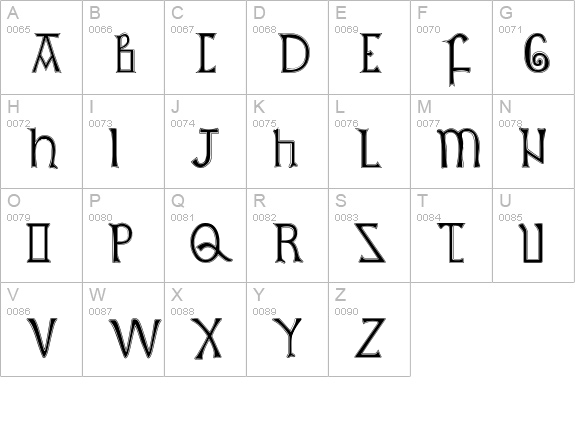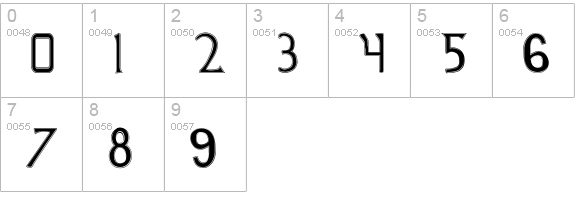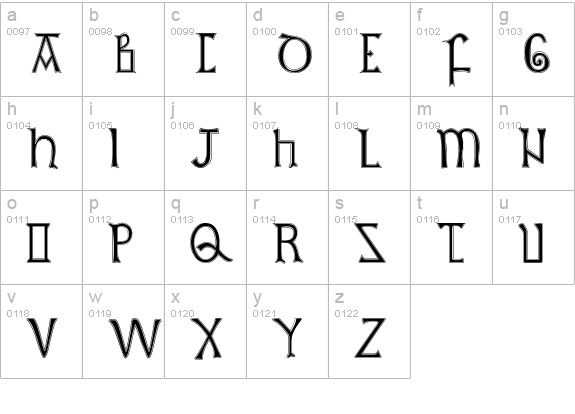
British Outline Majuscules Font Details
Introducing the exquisite British Outline Majuscules font, a stunning typeface that exudes elegance and sophistication. This font features clean lines and sharp edges, giving it a modern yet timeless appeal. Perfect for adding a touch of class to any design project, British Outline Majuscules is sure to make a statement. What sets this font apart is its versatility - it can be used for a wide range of design applications, from branding and advertising to invitations and posters. The bold uppercase letters command attention, while the intricate details add a touch of finesse. The best part? British Outline Majuscules is available for free download at FontsMarket.com. So, whether you're a designer looking to elevate your work or simply a typography enthusiast, this font is a must-have in your collection. Download it today and let your creativity soar with British Outline Majuscules!